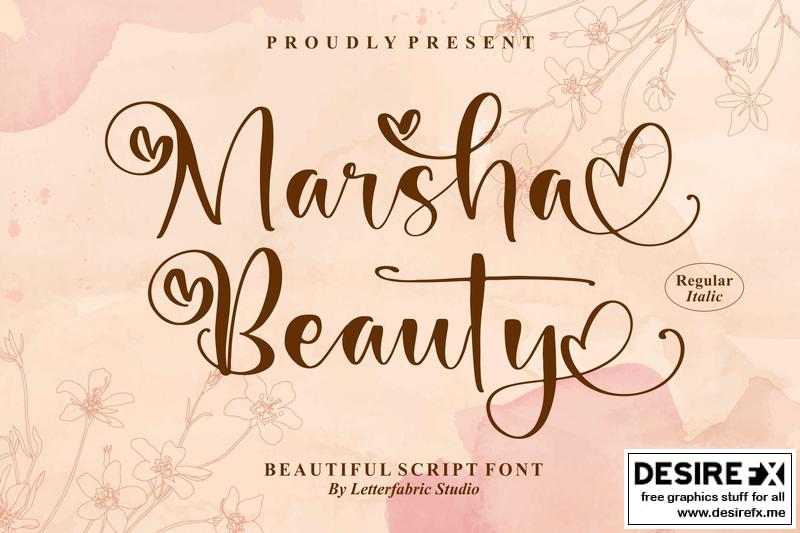
Marsha Beauty Beautiful Script Font LS F77QMTM
Hi ladies & gentlemen, this is one of our fonts suitable to complement your digital and printed creative products.
This font is perfect for posters, social media posts, branding, personal projects, etc.